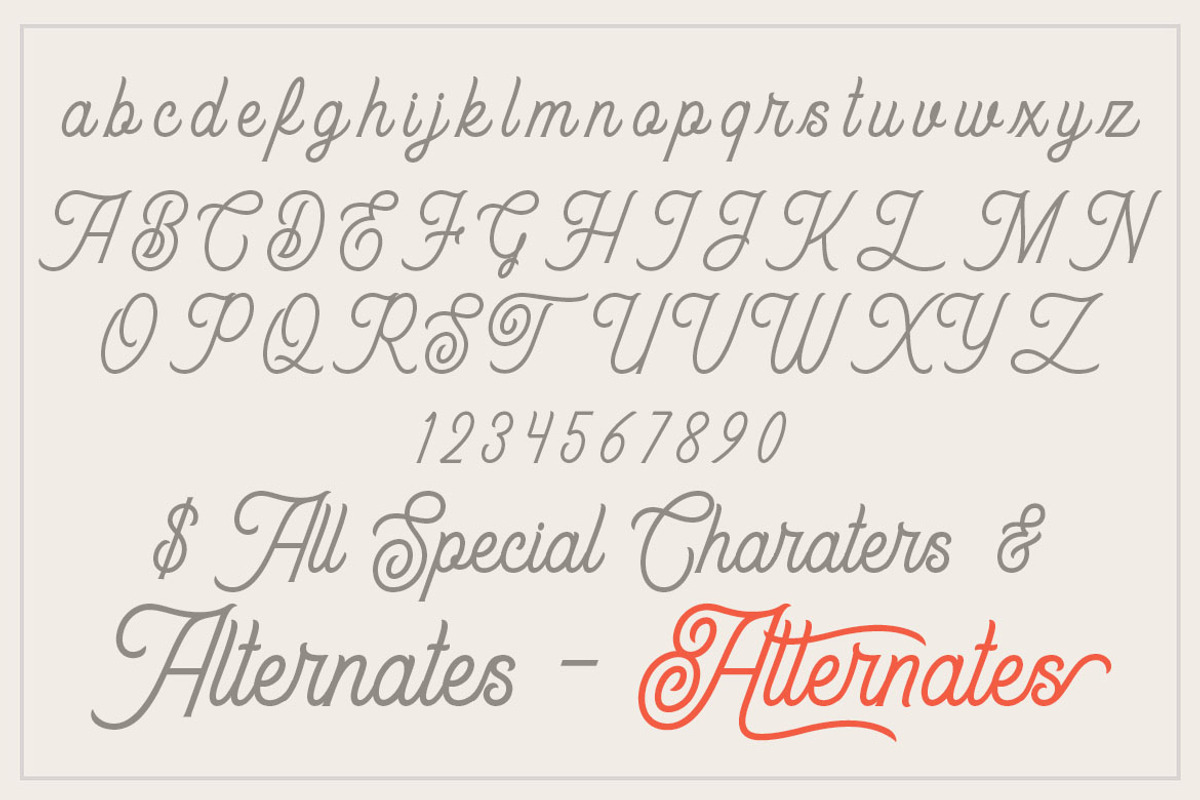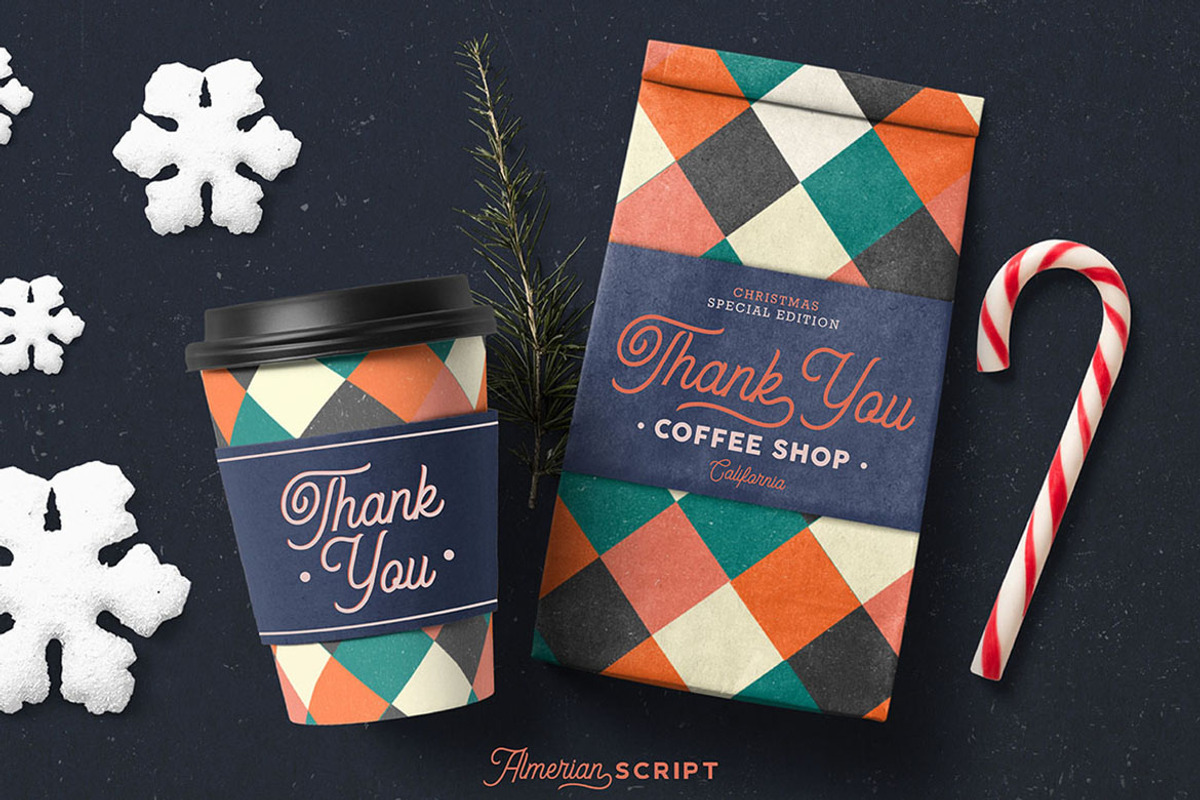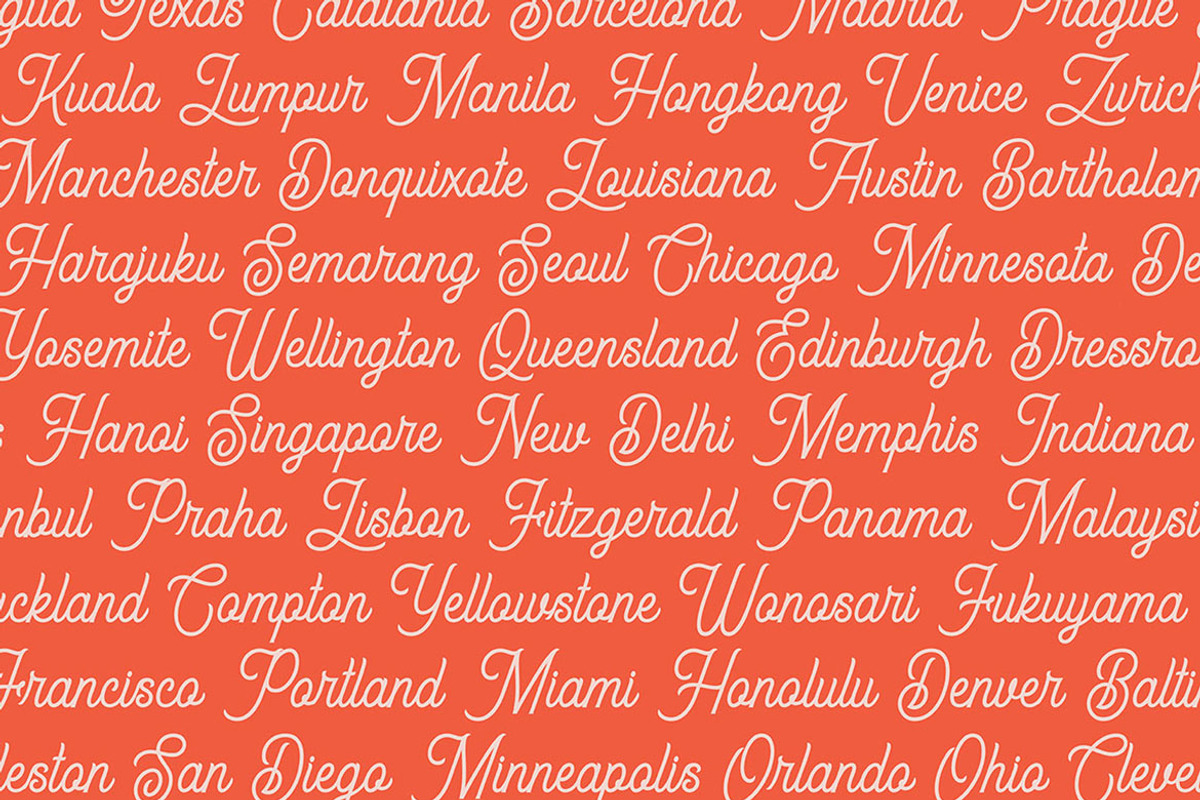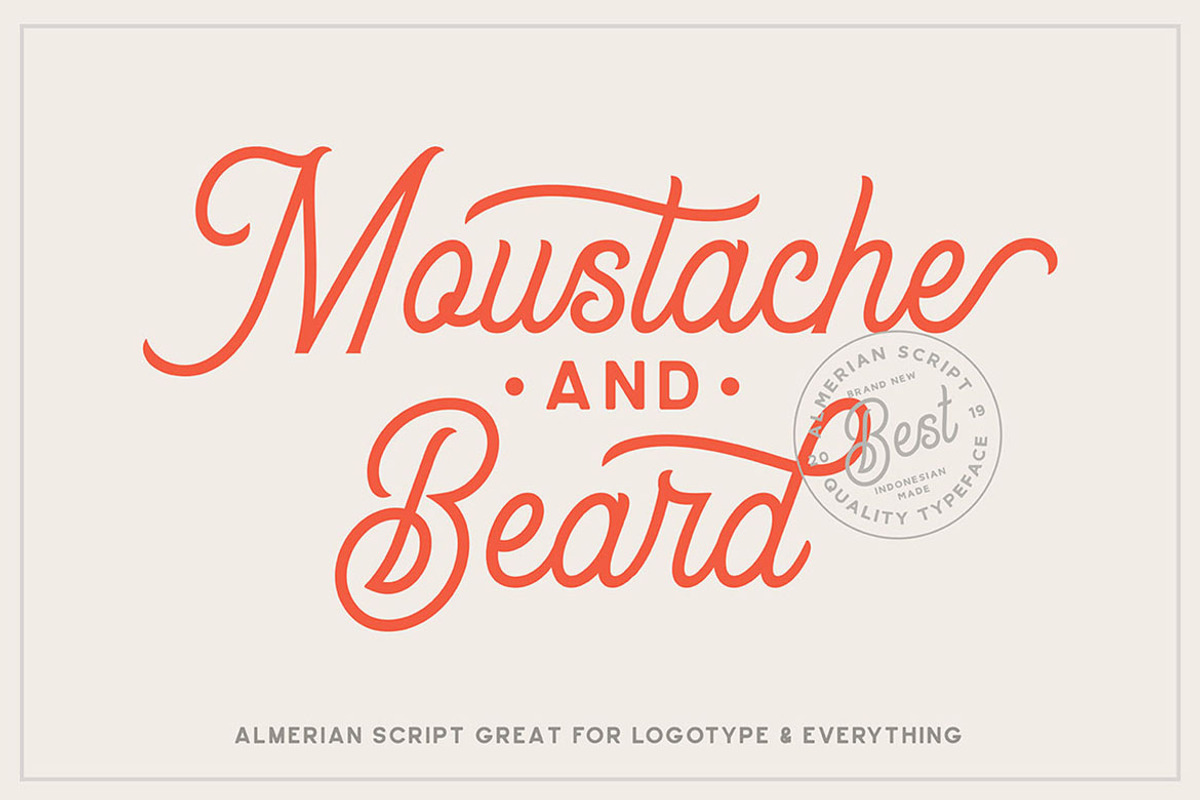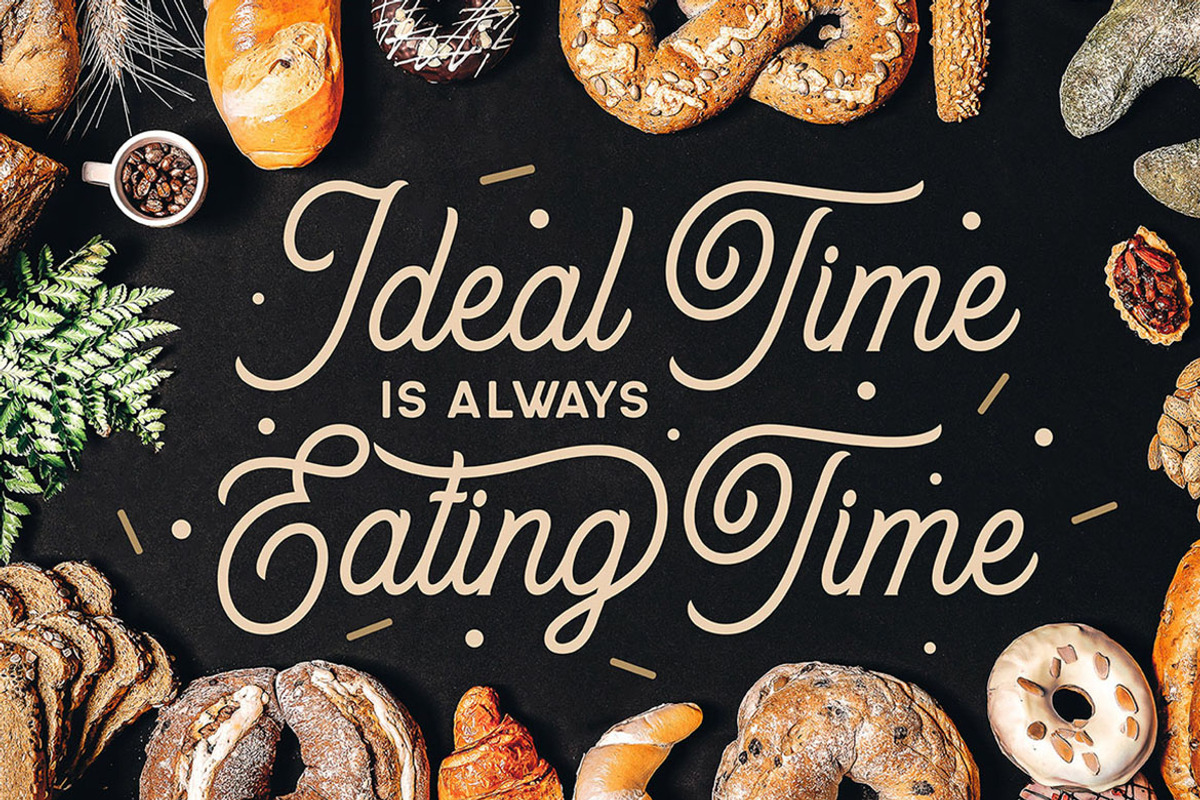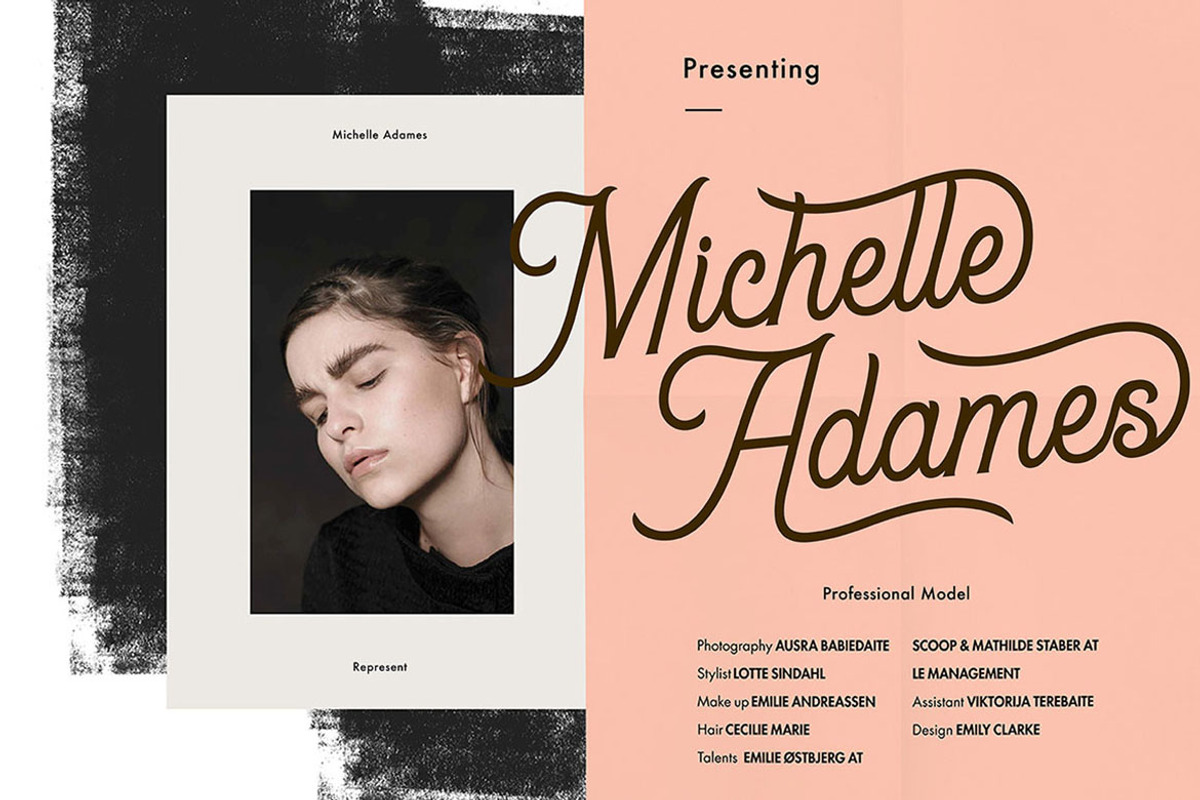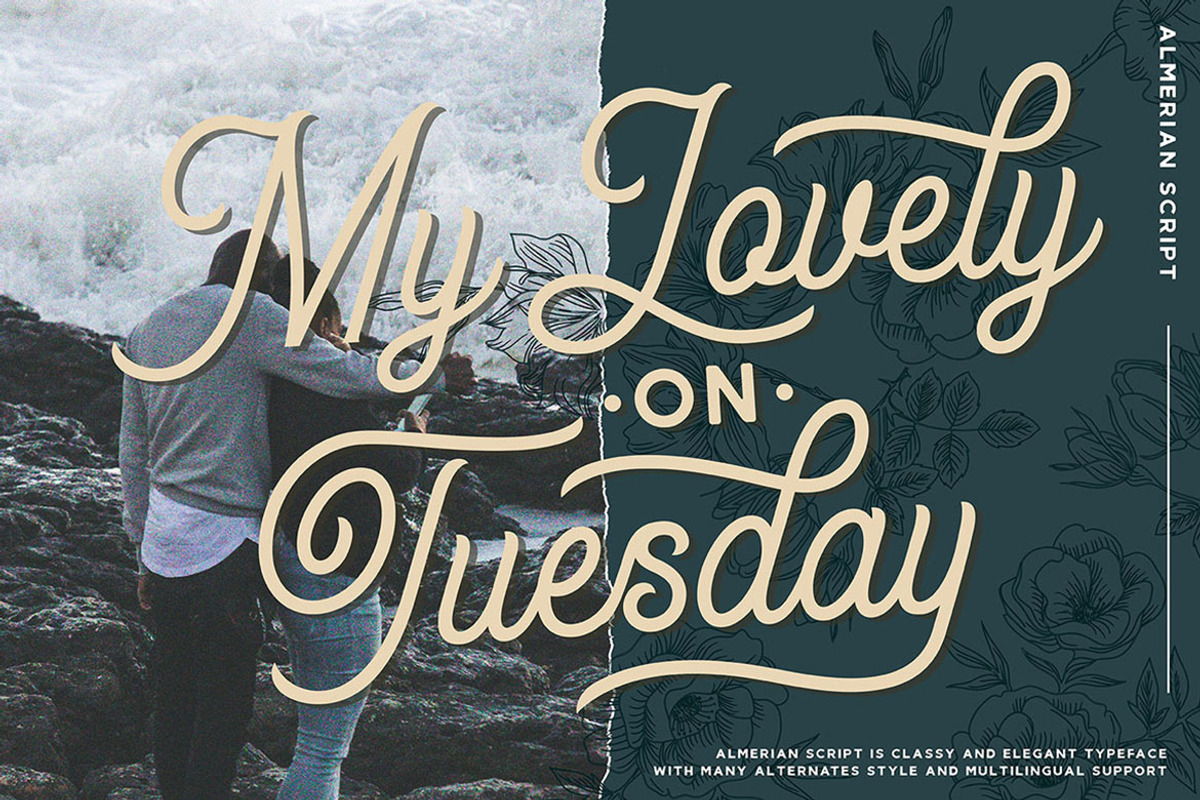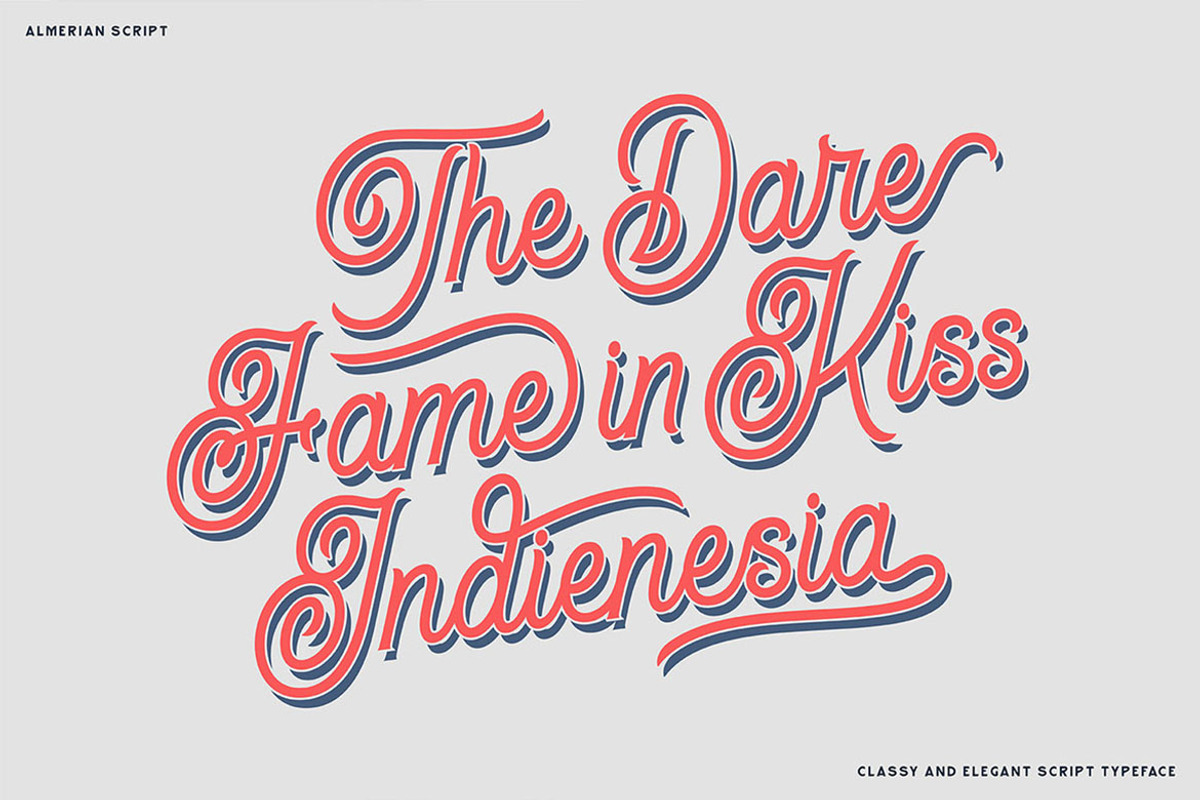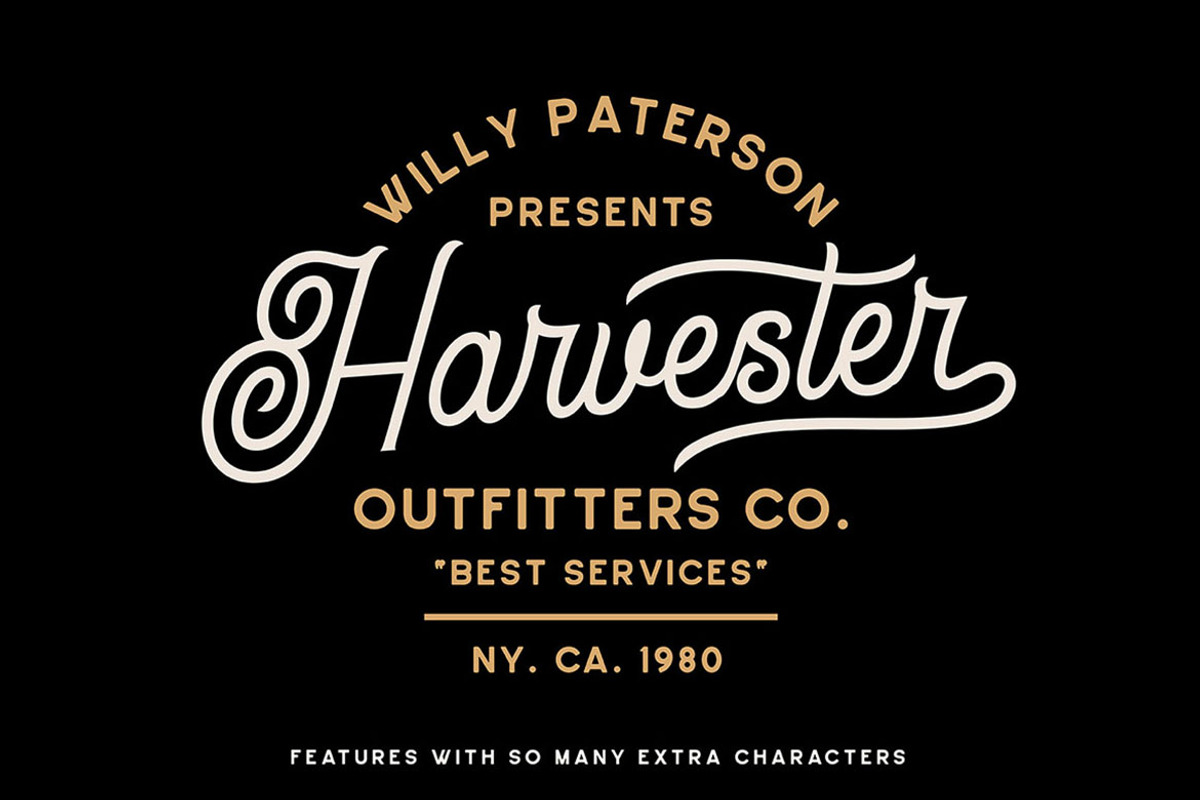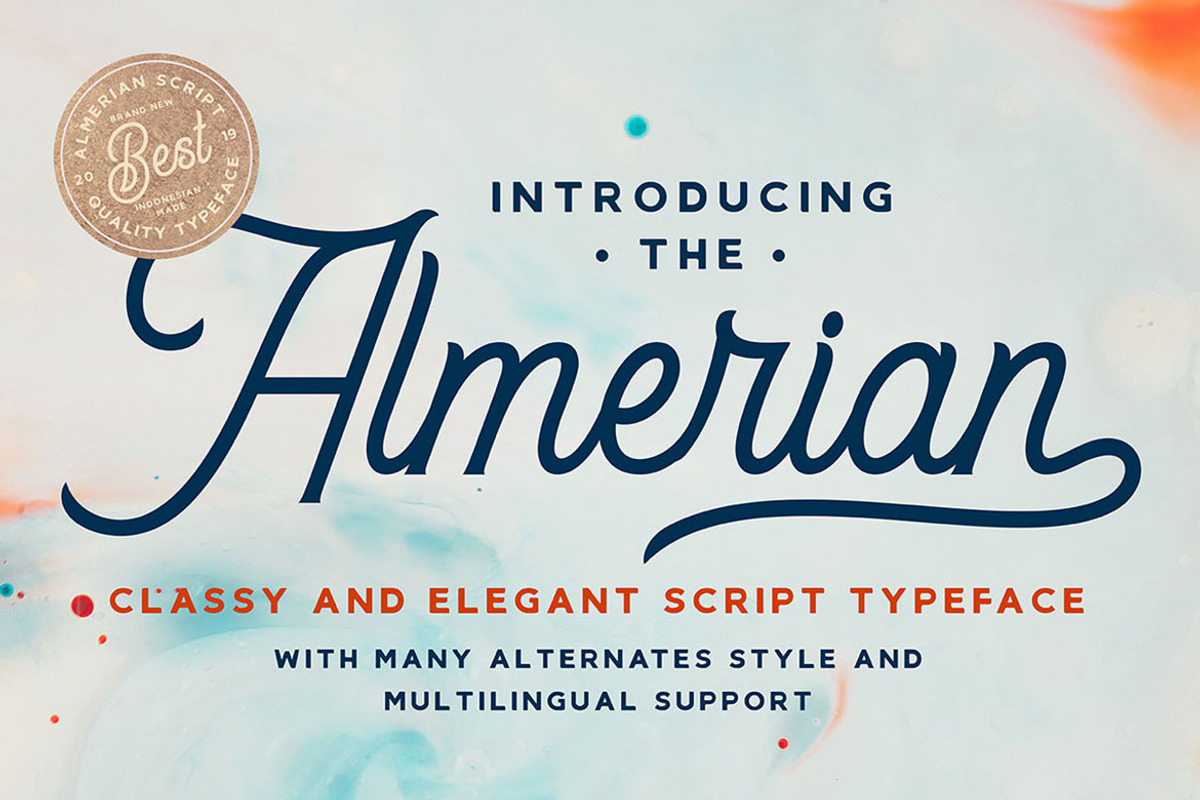
Almerian Retro Script Font
A font that is inspired by decorative vintage letters or cards. With monoline vintage style and lot of stylistic alternates you can create realistic headers. It works beautifully for branding and advertising. This font features uppercase, lowercase, ligatures, stylistic alternates, punctuation & numerals. Please check all preview images.